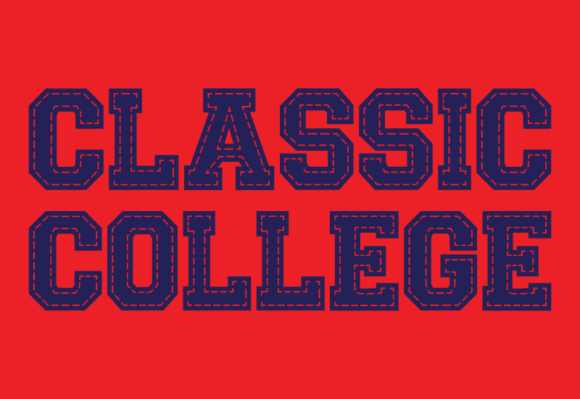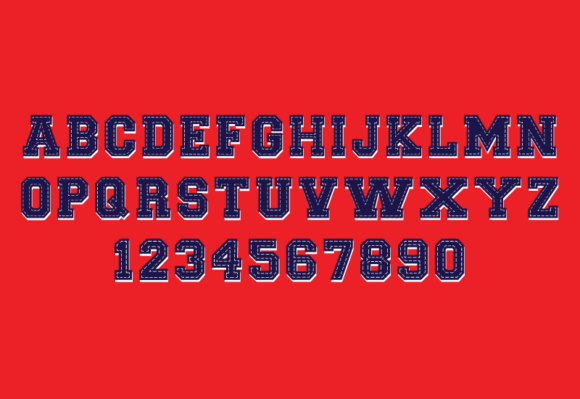
Classic College Font
Immerse yourself in the nostalgic grace of the “Classic College” font, a timeless athletic typeface latently resonating with the all-American sports tradition. Churching out an idyllic blend of vintage aesthetics and sprightly aura, this font style makes a perfect emblem for football, baseball, or basketball logos and t-shirts. It captures the true essence of an American campus, harking back to the varsity style synonymous with collegiate sports, setting the ideal tone for sports-related branding. The “Classic College” font isn’t just a typeface, it’s the winning spirit and enduring charm of collegiate sports encapsulated.